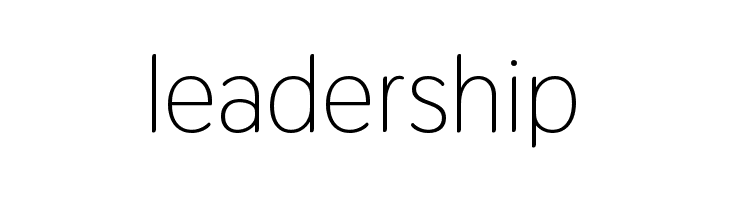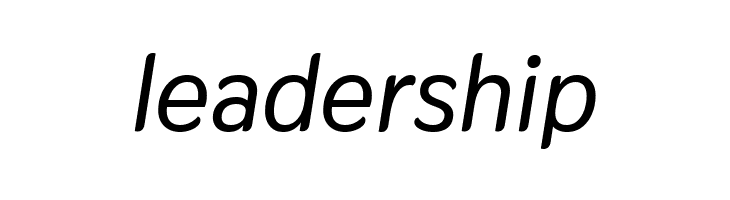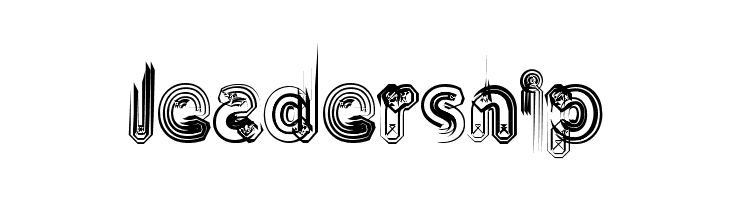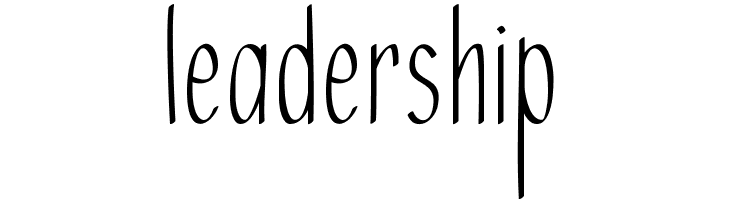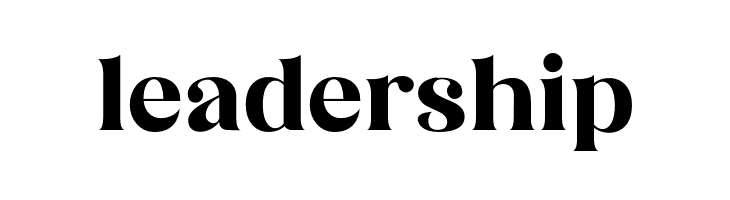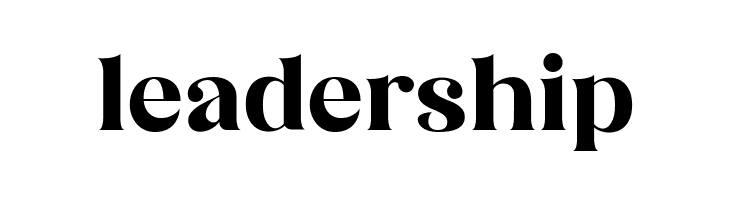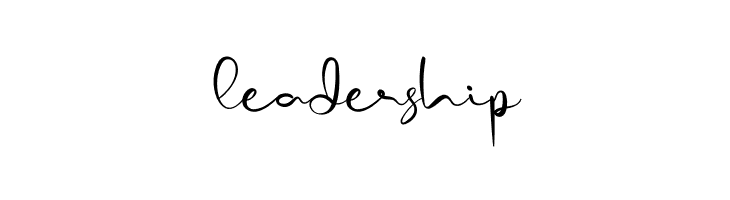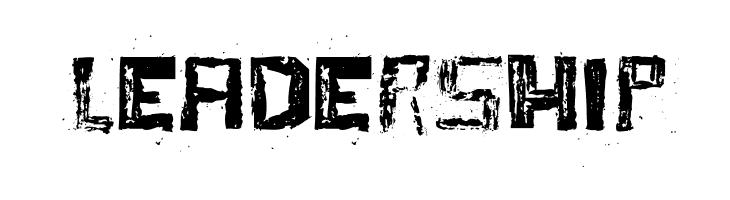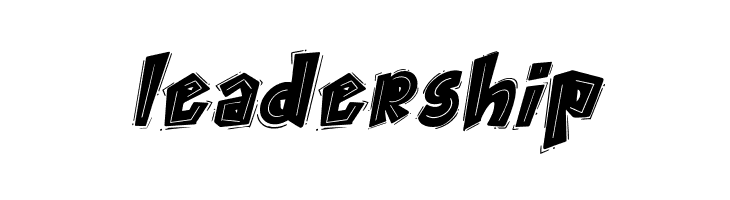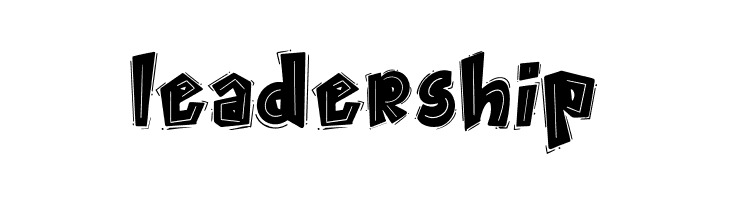
A bold, decorative font with intricate details and strong serifs.
A bold, decorative font with intricate, layered designs and a modern flair.
A bold, modern sans-serif font with smooth curves and consistent stroke width.
A modern, bold, and italicized font with a sleek and dynamic style.
A sleek, modern italic font with clean lines and elegant curves.
A modern, clean sans-serif font with balanced proportions and consistent stroke width.
A playful and whimsical script font with smooth, flowing curves and elegant loops.
A bold, dynamic script font with sweeping strokes and a handcrafted feel.
( The Auratype is retro and classic typeface who inspired by the 60s - 80s designs with more unique explored style like swosh and alternate character. This font made from manual sketch with many many scratch then finished to font. Make your designs project )
A bold, cursive font with elegant, interconnected characters.
( HE BOLD FONT is designed to make bold statement designs and challenge the rules of traditional typography. Perfect for logos, headlines, and impactful branding. Upgrade to the Pro version with additional features: www.the-bold-font.com )
A bold, modern font with thick strokes and geometric shapes for impactful headlines.
A bold serif font with dramatic contrast and elegant style.
A bold, expressive script font with dynamic, flowing characters.
A bold, distressed script font with dynamic curves and a rugged texture.
A playful, handwritten font with tall, narrow letters and a whimsical style.
A bold, flowing script font with elegant, cursive letterforms.
A segmented, digital display-style font with a bold, geometric appearance.
A bold, intricate blackletter font with historical elegance.
A dynamic, edgy font with sharp, angular strokes and a calligraphic flair.
A whimsical, magical-themed decorative font with enchanting silhouettes.
A playful, artistic script font with a hand-drawn, whimsical style.
Bold, obstructed sans-serif with horizontal strike-through and military motifs.
A decorative and artistic font with intricate illustrations and vintage tattoo art elements.
( The Auratype is retro and classic typeface who inspired by the 60s - 80s designs with more unique explored style like swosh and alternate character. This font made from manual sketch with many many scratch then finished to font. Make your designs project )
A bold, flowing script font with smooth, connected letters.
A bold, Gothic-inspired font with intricate details and sharp edges.
A bold, high-contrast serif font with sharp serifs and dramatic style.
A bold, blackletter-style font with intricate, historical design elements.